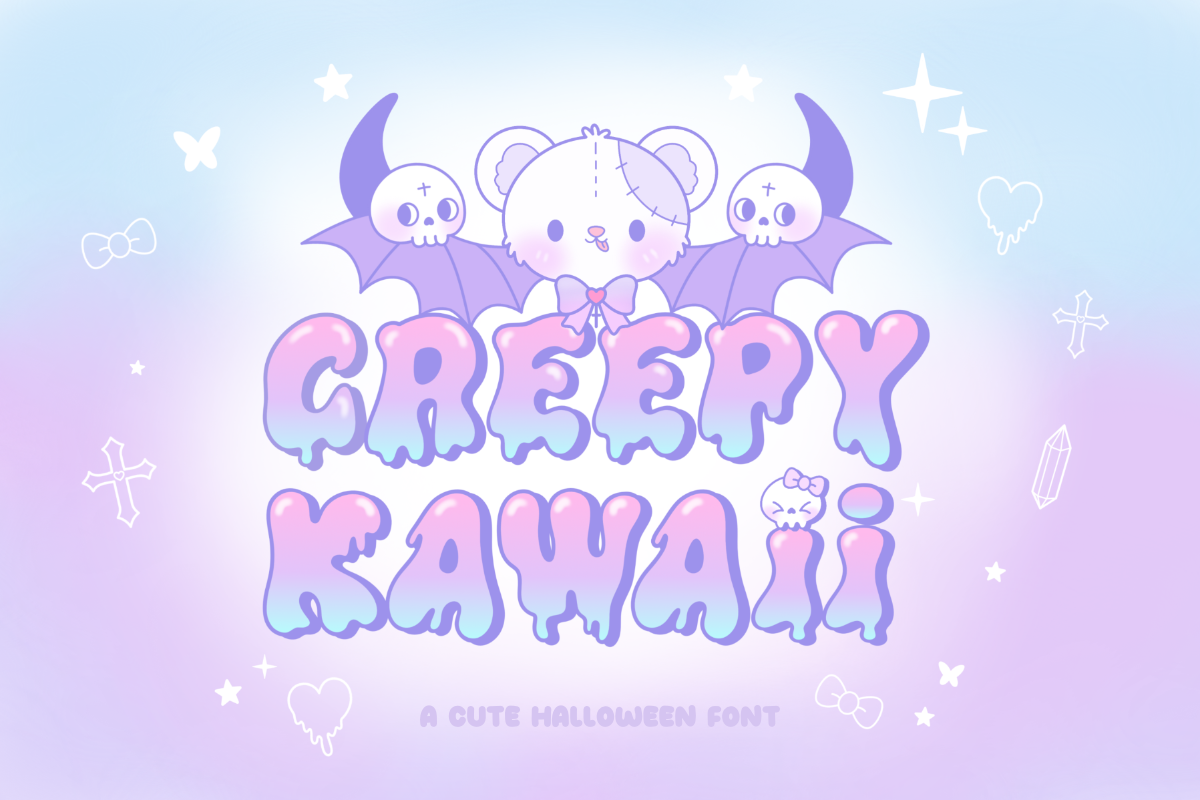
Creepy Kawaii Font Free Download is a unique blend of spooky and sweet, combining eerie elements with cute, bubbly letterforms. Perfect for Halloween-themed projects, quirky merchandise, pastel goth aesthetics, children’s party invitations, and playful branding, this font delivers a fun twist on creepy design with a touch of charm.
With its rounded edges, bold strokes, and adorably eerie personality, Creepy Kawaii adds standout style to any design needing both edge and cuteness. It’s ideal for anyone who loves a bit of horror with a whole lot of heart.